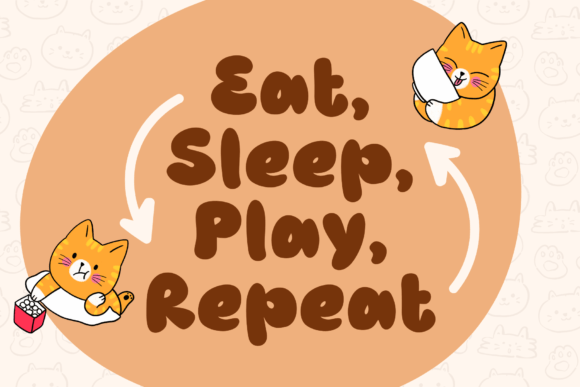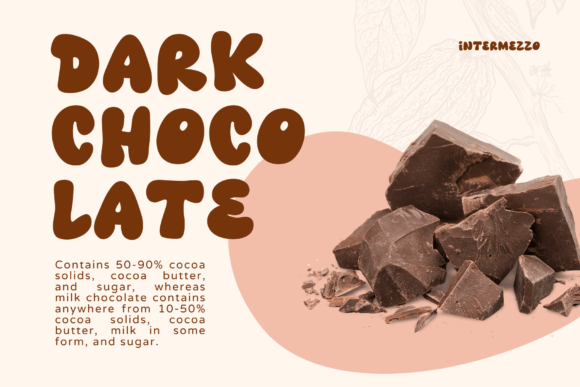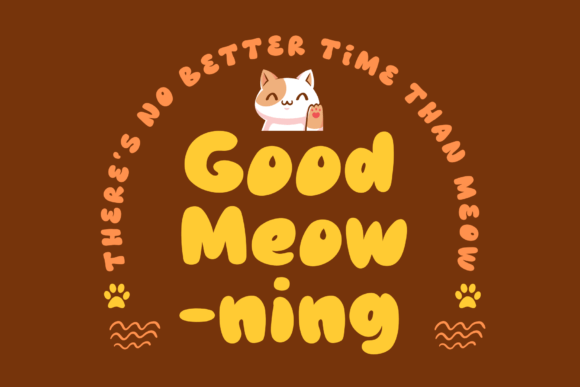
Introducing β€œMomocat Playful Font” – a delightful burst of creativity in every character.
This bubbly, fun-loving typeface is your ticket to injecting a dose of playfulness into your designs Momocat’s unique bubble style and fat strokes make it the perfect choice for display, titles, and headlines that demand attention.